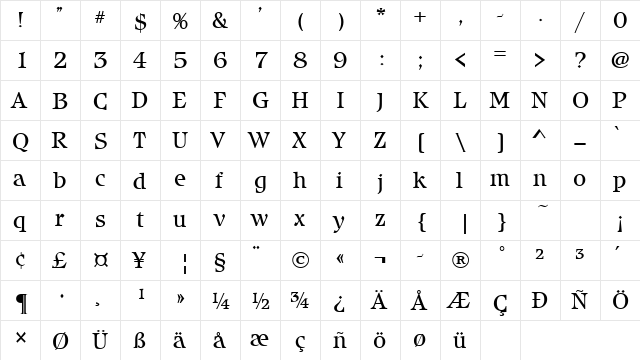
Isabell Regular
Design Context for Isabell Typeface
Isabell offers clean, dependable letterforms without strong stylistic allegiance, making it a practical choice for designers who need flexibility.
Pro Tip: Use Isabell in both headline and body roles to test its range before committing to a single application.